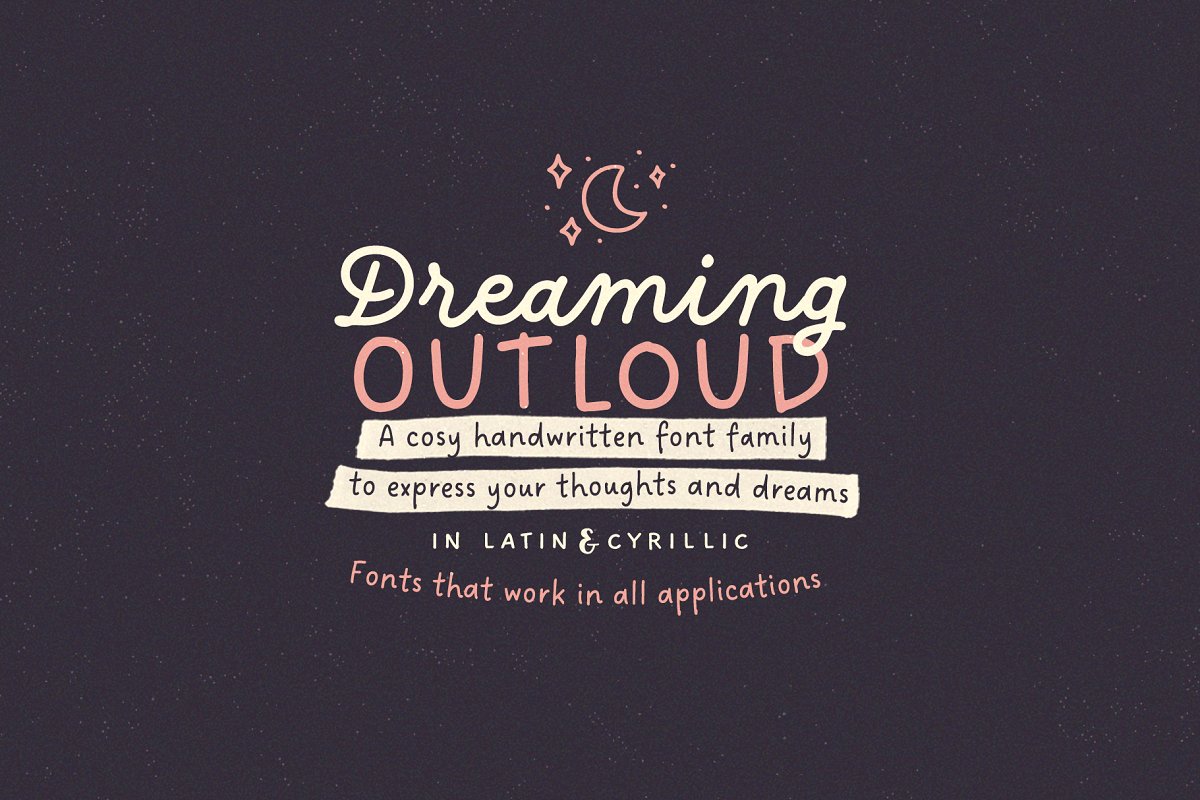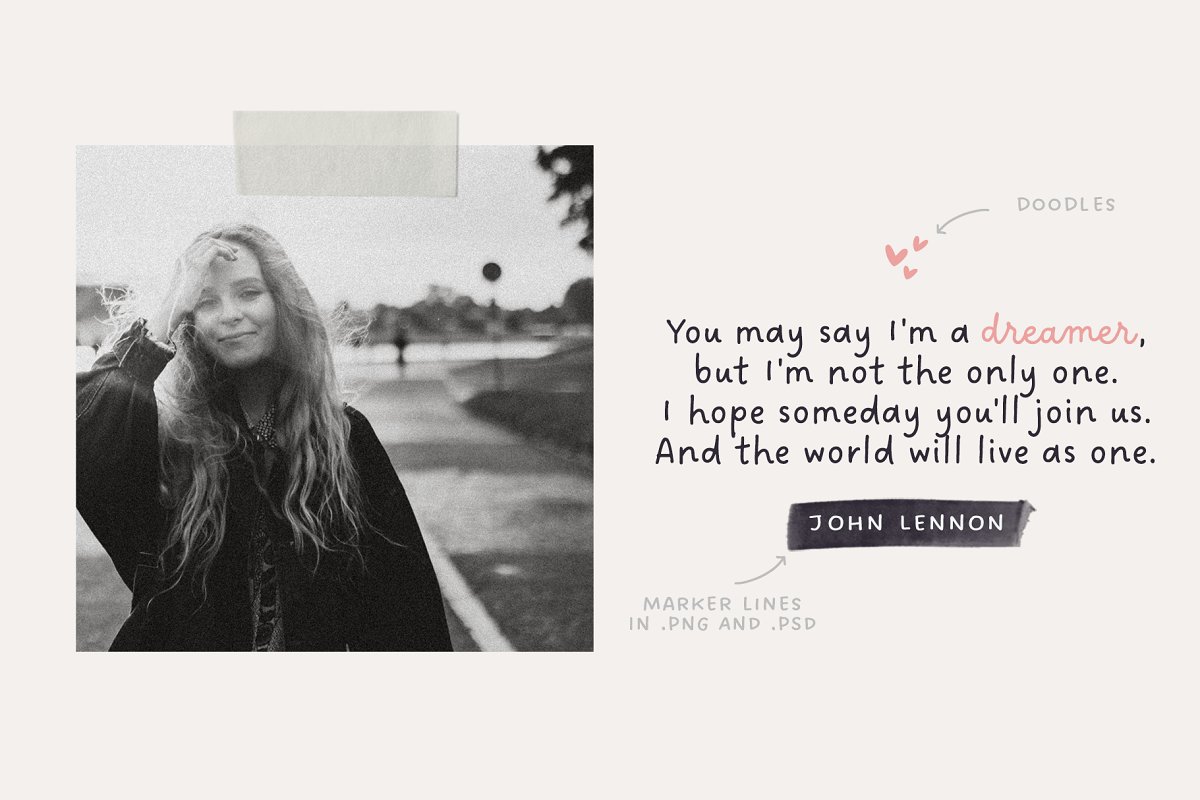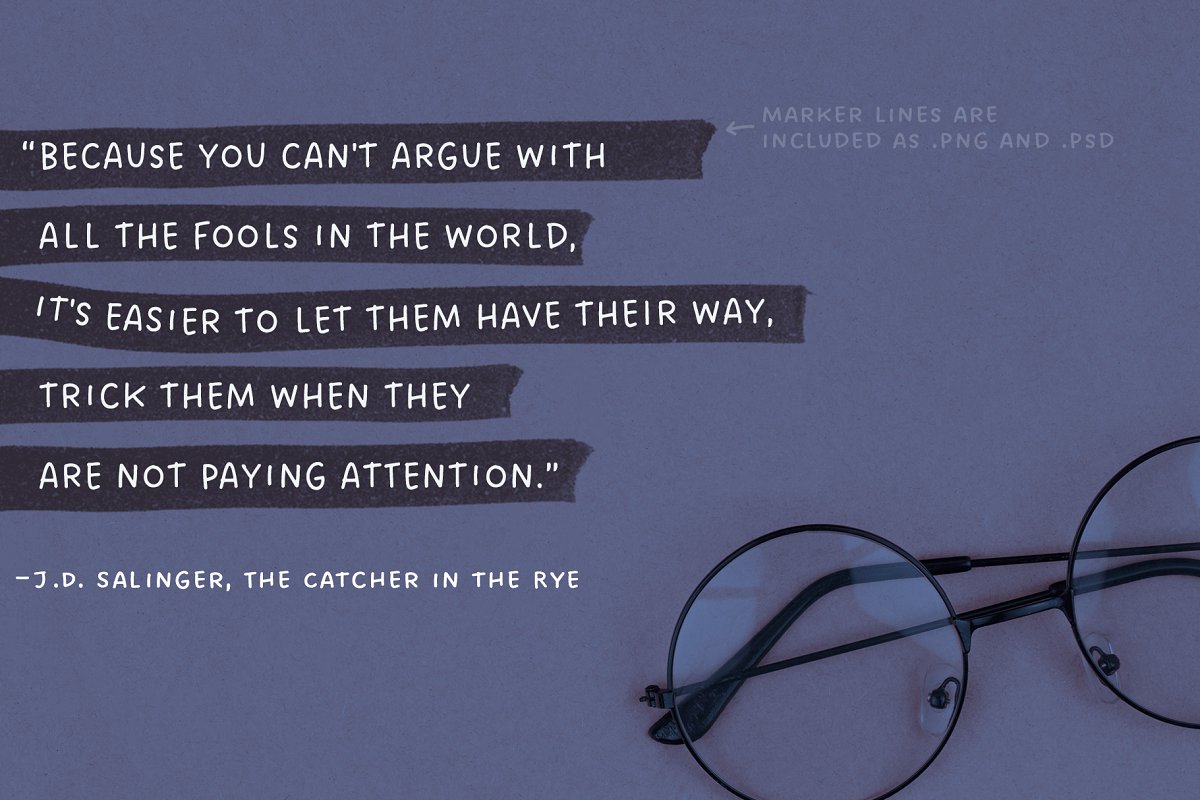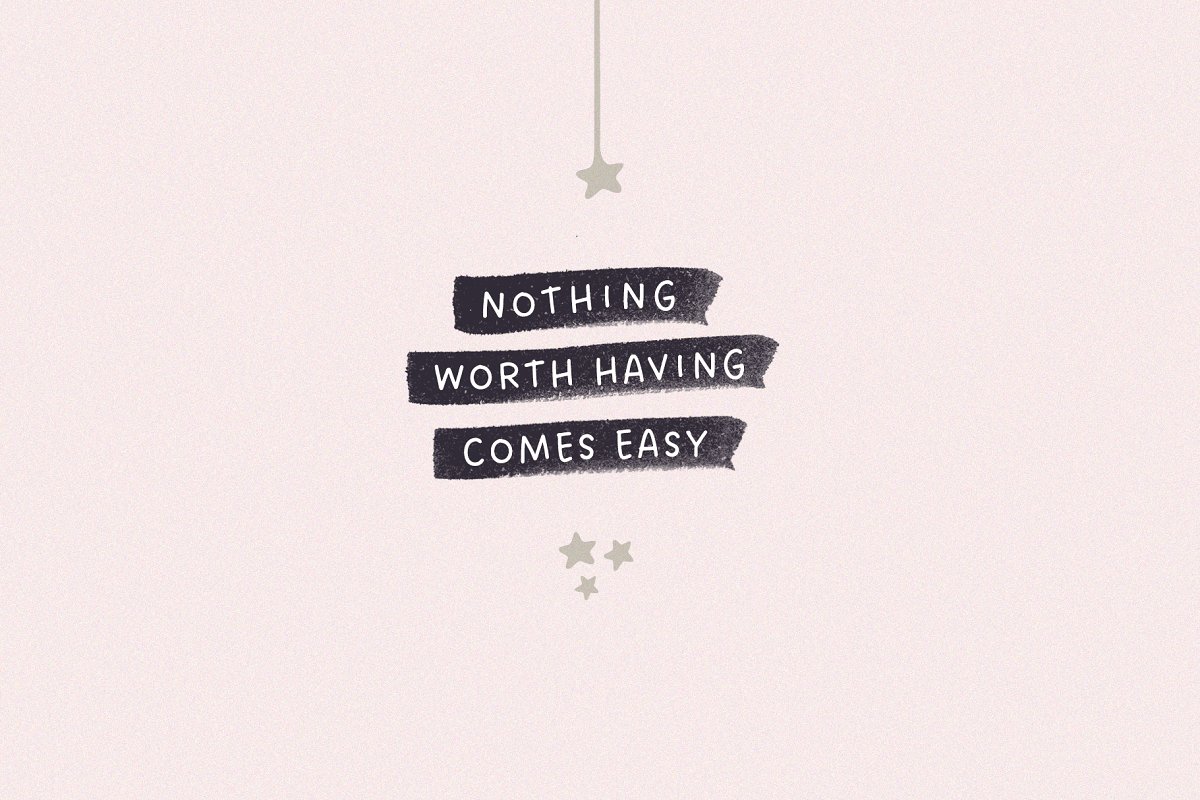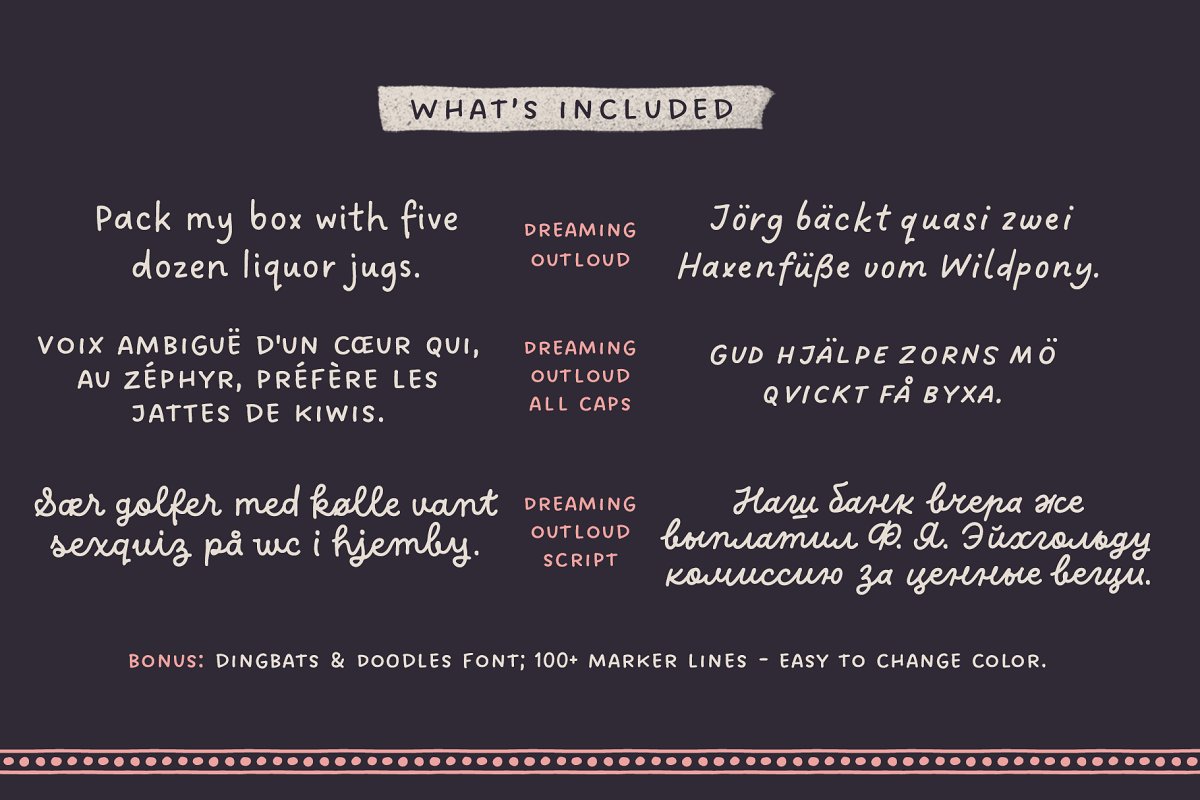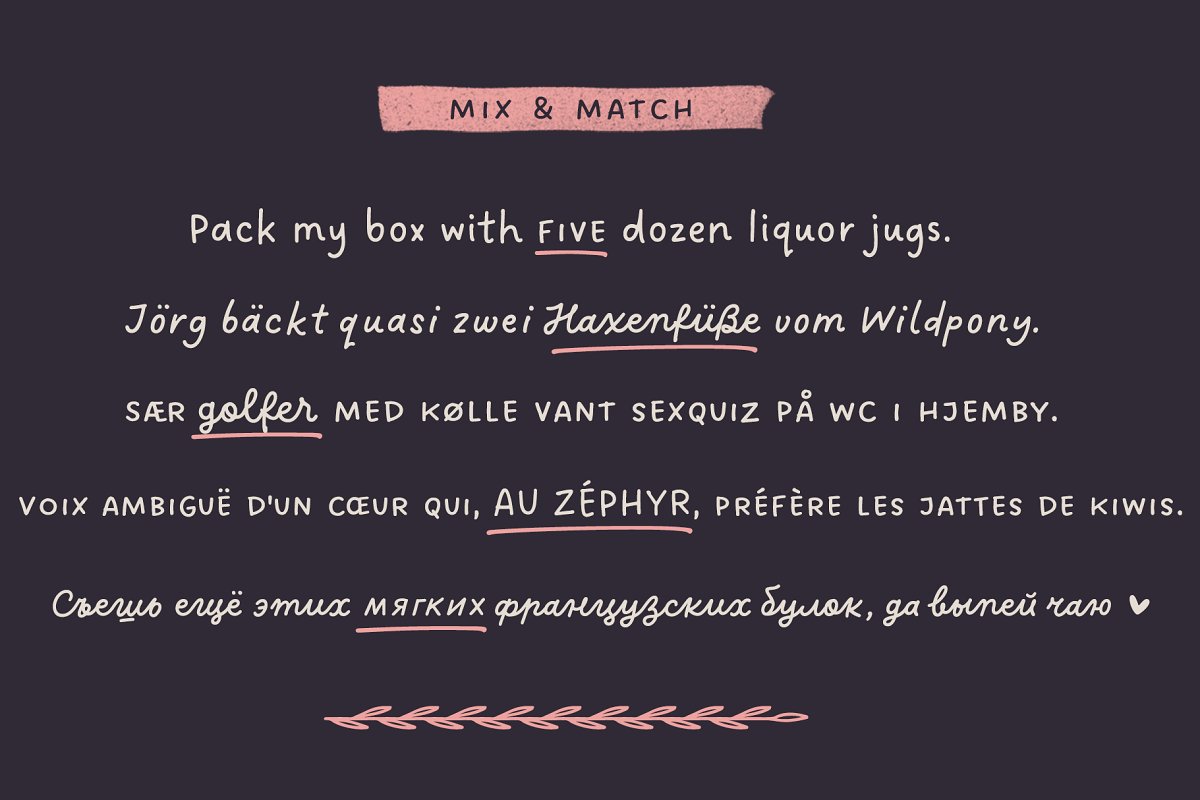
About the Dreaming Outloud Font Pack
Say hello to a casual handwritten font family – Dreaming OutLoud, Update: Dreaming Outloud now has a Christmas Doodles Font!7 handwritten typefaces made to complement each other in the best possible way, They are easy to use and perfect for expressing your thoughts, posting quotes and simple daily updates on social media, The font package is complemented by more than a 100 transparent background marker lines (easy to change color!) – to emphasise what you are saying 🙂 – and dingbats & doodles font
You can use these fonts in Canva-like applications as well – they are fully unicode mapped, All fonts are multilingual – European latin based languages and cyrillic (Russian & Ukrainian) are supported,